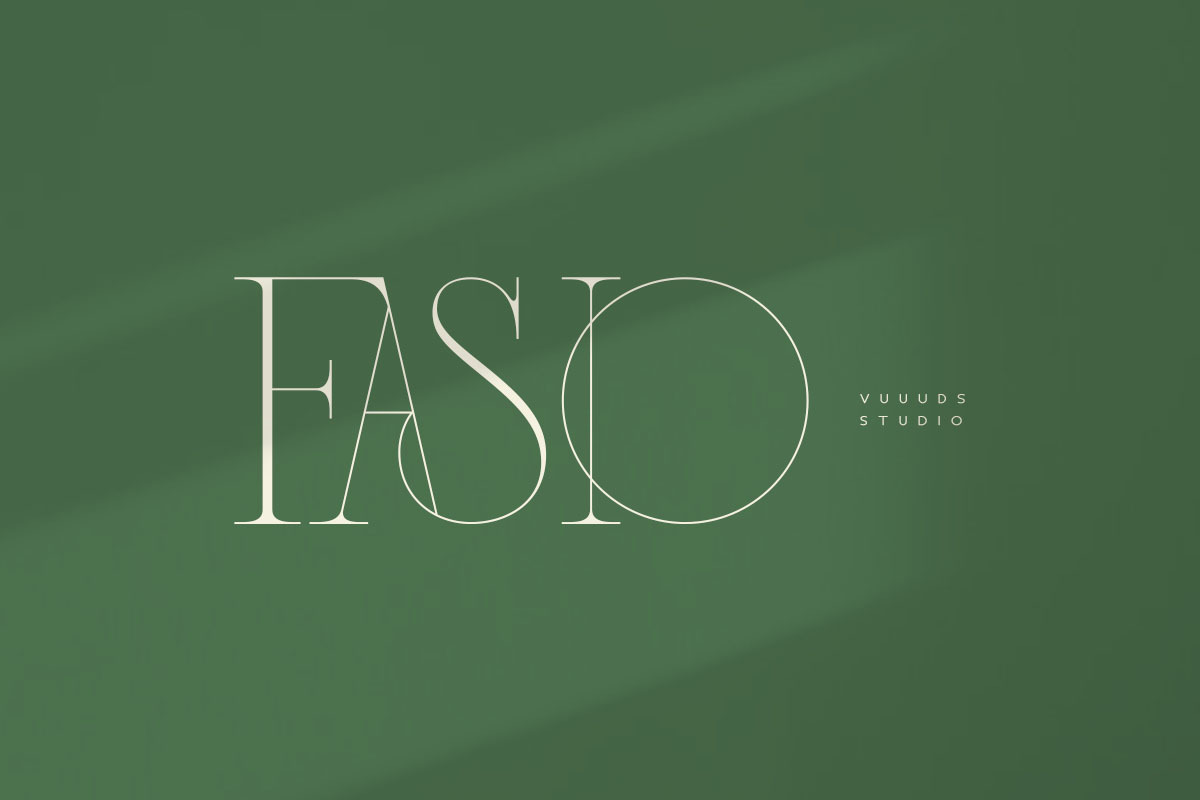
Fasio Font
Introducing Fasio Serif Font!
Fasio is modern serif font, every single letters have been carefully crafted to make your text looks unique.
Foreign languages support: ÀÁÂÃÄÅÆÇÈÉÊËÌÍÎÏÐÑÒÓÔÕÖØÙÚÛÜÝàáâãäåæçèéêëìíîïðñòóôõöøùúûüýÿ